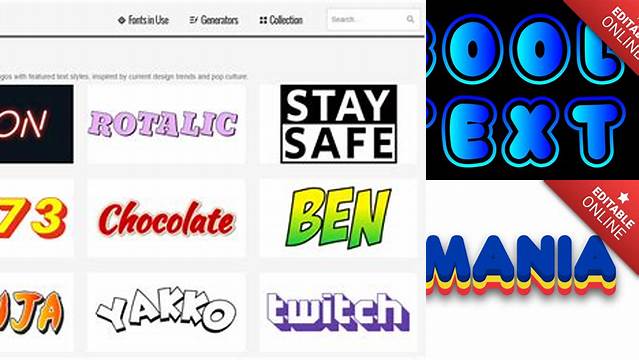
Unique Letter Fonts Generator: Make Your Text Stand Out!
Are you looking to spice up your designs, social media posts, or personal projects? Want to stand out from the crowd with text that grabs attention? Then, you're in the right place! This article dives deep into the fascinating world of a unique letter fonts generator, exploring what they are, how they work, and why they're an invaluable tool for anyone looking to add a touch of personality and flair to their text. We'll cover everything from the basics to advanced tips and tricks, ensuring you're well-equipped to choose the perfect font for any occasion. Whether you're a seasoned designer, a social media enthusiast, or just someone who loves to experiment with fonts, get ready to discover the power of these amazing tools.
What is a Unique Letter Fonts Generator?
Let's start with the basics, shall we? A unique letter fonts generator, at its core, is a web-based tool or software designed to transform your regular text into stylish and unique fonts. Unlike standard fonts that are pre-designed and installed on your computer, these generators create custom fonts in real-time. They take your input text and apply various stylistic transformations, such as different letter shapes, sizes, and special effects, to create visually appealing text. The result? Text that's far from the ordinary! It's like having a personal font designer at your fingertips. These generators come in various forms, from simple online tools to more complex software with advanced customization options. You type in your text, select from a range of styles, and instantly see the transformed text. It's that easy! The best part is that most of these tools are free and accessible, making them a fantastic resource for anyone looking to add some extra flair to their text. These tools offer a quick and easy way to experiment with different fonts without having to download or install anything, saving you valuable time and effort. This accessibility has made unique letter fonts generator incredibly popular among social media users, graphic designers, and anyone who wants to make their text stand out. They are a quick, convenient, and fun way to add a personal touch to your writing.
How Does a Unique Letter Fonts Generator Work?
So, how exactly do these unique letter fonts generators work their magic? The process is relatively straightforward, but the underlying technology can be quite complex. Most generators operate on a simple principle: they take your input text and apply a series of transformations to each character. These transformations can include changing the letter's shape, adding decorations, modifying its size, or even altering the spacing between letters. Many generators work by using a combination of algorithms and pre-designed font styles. When you type in your text, the generator analyzes each character and applies the selected style. Some generators have a library of pre-designed fonts, while others use algorithms to create new and unique styles on the fly. These algorithms may involve techniques like character substitution, where each letter is replaced with a different symbol or glyph, or text manipulation, where the shapes and styles of letters are modified. The output is then displayed as a text string. This allows you to copy and paste the newly generated text into your social media posts, documents, or any other platform that supports text input. The beauty of these generators is in their simplicity. You don't need to understand the technical details of font design to use them. The tools handle all the complex processes behind the scenes, allowing you to focus on what matters most: creating visually stunning text. The technology continues to evolve, with new generators offering more advanced features like customizable styles, the ability to preview your text in real-time, and even the option to create your own unique fonts from scratch. These advancements are making these tools even more valuable and versatile for designers and casual users alike. The ability to quickly experiment with different styles and instantly visualize the results is a game-changer for anyone looking to add some extra creativity to their content. This instant feedback helps you refine your designs and select the perfect font.
Why Use a Unique Letter Fonts Generator?
Now, let's talk about why you might want to use a unique letter fonts generator. The reasons are numerous, but they all boil down to one thing: enhancing your visual communication. Here are some key benefits:
- Stand Out from the Crowd: In a world saturated with content, grabbing attention is more important than ever. Unique fonts help you break through the noise and make your message more memorable. They're a fantastic way to distinguish yourself from other people and brands.
- Boost Your Brand: For businesses, using a distinctive font can significantly enhance brand recognition. A unique font can become an integral part of your brand identity, making your content instantly recognizable and helping to create a cohesive brand image. Consistent use of a distinct font across all your marketing materials can build strong brand recognition. This helps you establish a clear visual identity that resonates with your target audience.
- Express Your Creativity: These generators offer endless possibilities for creative expression. Whether you want to create fun social media posts, eye-catching graphics, or personalized messages, these tools provide the flexibility to do so. They're a fantastic way to unleash your creativity and experiment with different styles. It's a fun way to express your personality and add a unique touch to your content.
- Enhance Readability: While some fonts can be difficult to read, many generators offer styles that are both stylish and highly readable. This ensures that your message is not only visually appealing but also easy to understand. You can make your text not only look good but also deliver your message effectively.
- Easy and Free to Use: Most unique letter fonts generator are free and user-friendly. You don't need any special design skills or software to start using them. This makes them accessible to everyone, regardless of their experience level. The ease of use allows you to quickly generate text and experiment with different styles without any hassle. These tools are a great way to explore the world of typography and create beautiful text without any cost.
Types of Unique Letter Fonts Available
Explore the diverse world of fonts! Unique letter fonts generators provide an extensive range of styles to suit every taste and purpose. From elegant and classic to modern and playful, here's a glimpse of the types of fonts available:
- Calligraphy Fonts: These fonts mimic the style of handwritten calligraphy, offering an elegant and sophisticated look. They are perfect for invitations, logos, and any project that requires a touch of grace.
- Gothic Fonts: Gothic fonts, with their intricate and ornate designs, add a touch of mystery and history to your text. They are often used in headers, posters, and themed designs.
- Script Fonts: Script fonts emulate handwriting styles, making your text feel personal and natural. They are versatile and can be used in various contexts, from social media posts to website banners.
- Bubble Fonts: Bubble fonts, known for their rounded, playful shapes, are ideal for children's content, fun social media posts, and anything that requires a lighthearted feel.
- Cursive Fonts: Similar to script fonts, cursive fonts mimic cursive handwriting, lending a sense of sophistication and formality to your text.
In conclusion, a unique letter fonts generator is a powerful tool for anyone looking to enhance their visual communication. They provide a simple and effective way to add personality, creativity, and brand identity to your text. By understanding how these tools work, the different types of fonts available, and the best practices for using them, you can transform your text into something truly unique and captivating. So go ahead, experiment with different fonts, and watch your text come to life! The world of font generation is vast and exciting. Embrace the opportunity to create content that is both visually stunning and engaging. With the right fonts, your text can make a lasting impact.